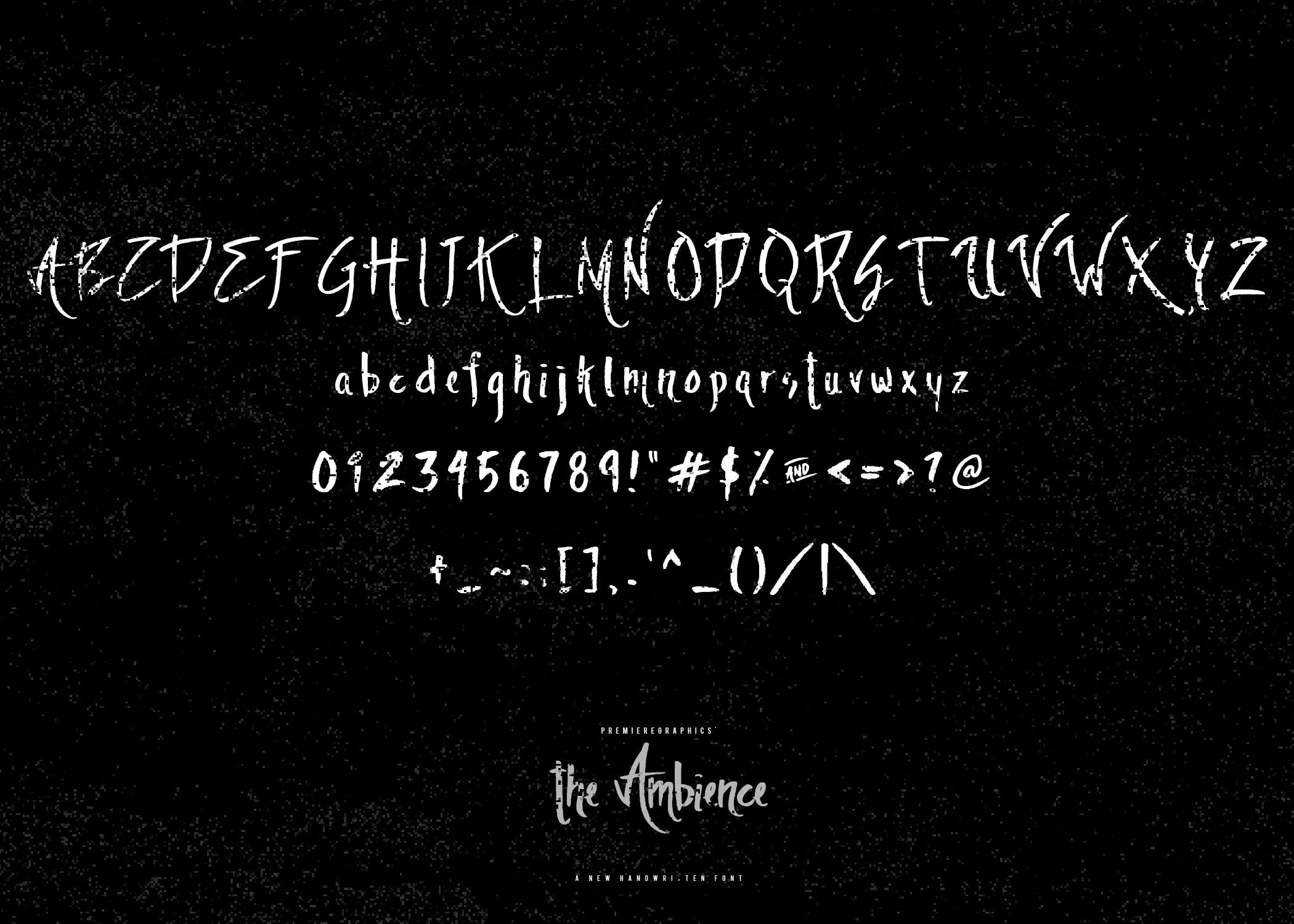
HomeScript FontsThe Ambience Font Script Fonts The Ambience Font FacebookXPinterestWhatsApp The Ambience Font Poster 2 About The Ambience Font The Ambience is a horror-style script created by Premiere Graphics. DOWNLOAD ON CREATIVE FABRICAThis font is sold and delivered by Creative Fabrica. Font Canyon may earn a commission if you buy through this link. People also explored The Flowers Font Ambiguous Font Roswita Font Already Font Korka Font Barbara Style Font Beverly Hills Font Aleysia Font Candyland Font 287 0 TagsThe Ambience Font Previous articleGeovana Signature Typeface FontNext articleNaishila Script Font LEAVE A REPLY Cancel reply Comment: Please enter your comment! Name:* Please enter your name here Email:* You have entered an incorrect email address! Please enter your email address here Website: Save my name, email, and website in this browser for the next time I comment. Personal Use Free Engine Personal Use Free Read more about this font Expaing Personal Use Free Read more about this font Rellista Script Personal Use Free Read more about this font Loving You Personal Use Free Read more about this font BLOG Exploring Font Trends Shaping Communication in the Digital Era Fonts, like all design elements, are subject to trends. They play a crucial role in communicating a brand's personality,... The 10 Best Handwriting Fonts to Add Personality to Your Designs Best Fonts for YouTube Videos: Make Your Thumbnails Stand Out How to Cut Any Font on Cricut: Convert a Font to SVG (Free)